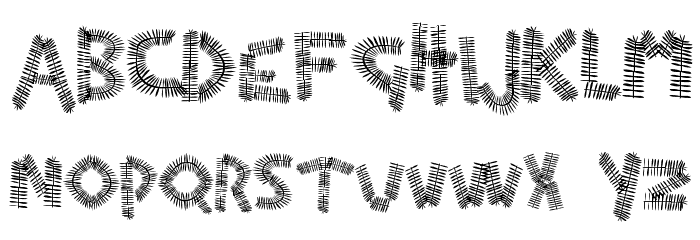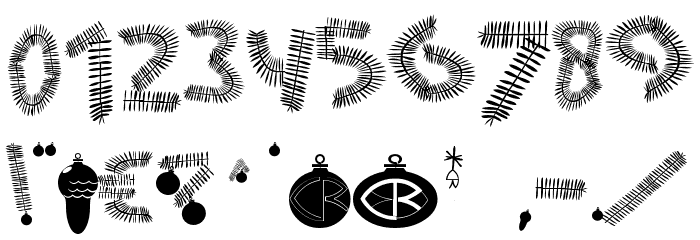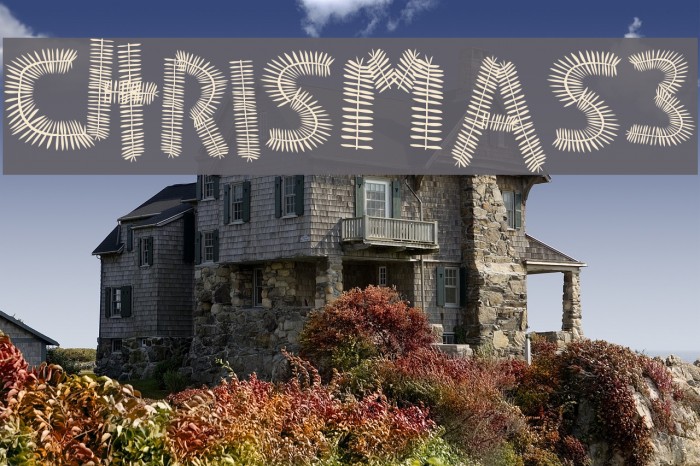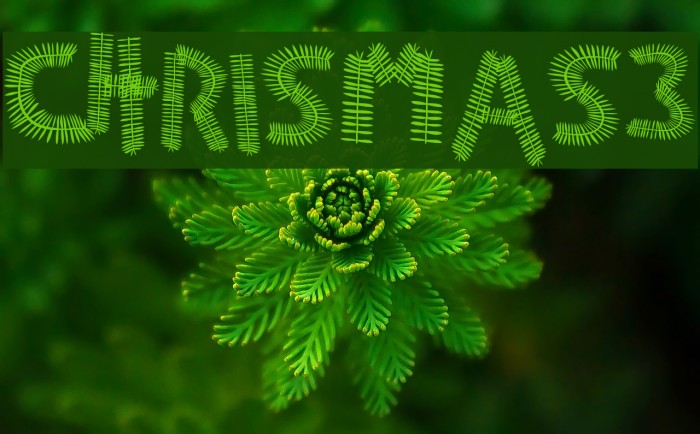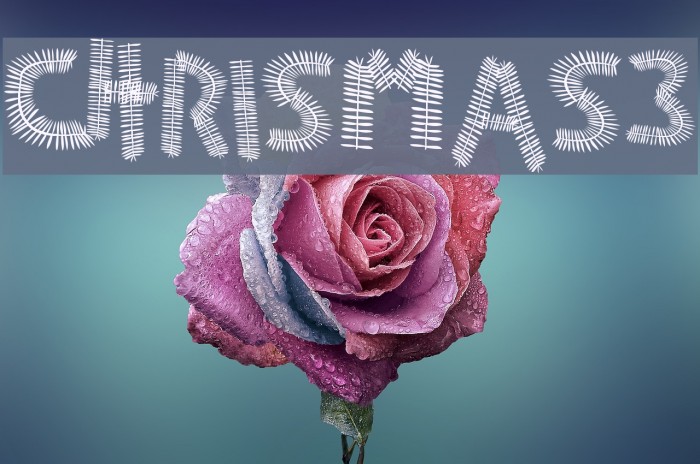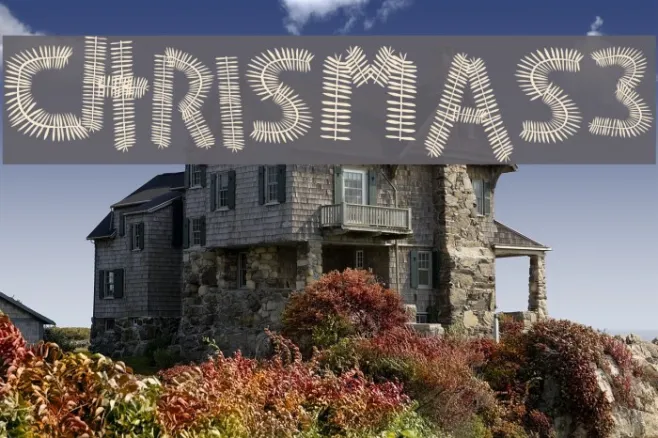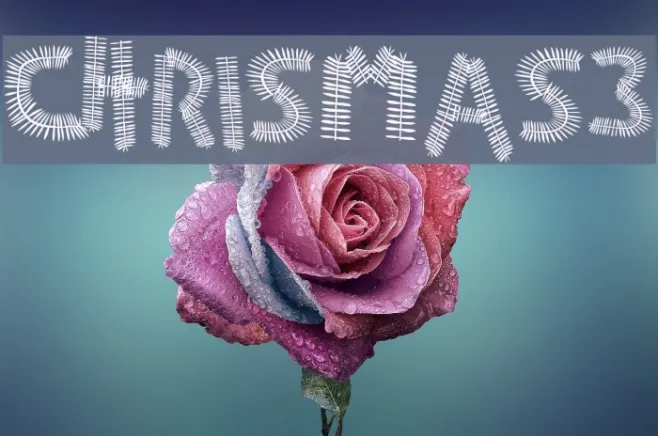
CHRISmas3 Font
This font features a playful and festive design, reminiscent of holiday decorations. Each character is composed of a series of lines that mimic the appearance of pine needles or tinsel, creating a textured and dynamic look. The uppercase and lowercase letters maintain a consistent style, with a whimsical and decorative flair. The numbers and special characters are equally adorned, making them suitable for seasonal themes. The overall appearance is bold and eye-catching, perfect for capturing attention in holiday-themed projects.
A festive, decorative font with a pine needle texture, ideal for holiday themes.